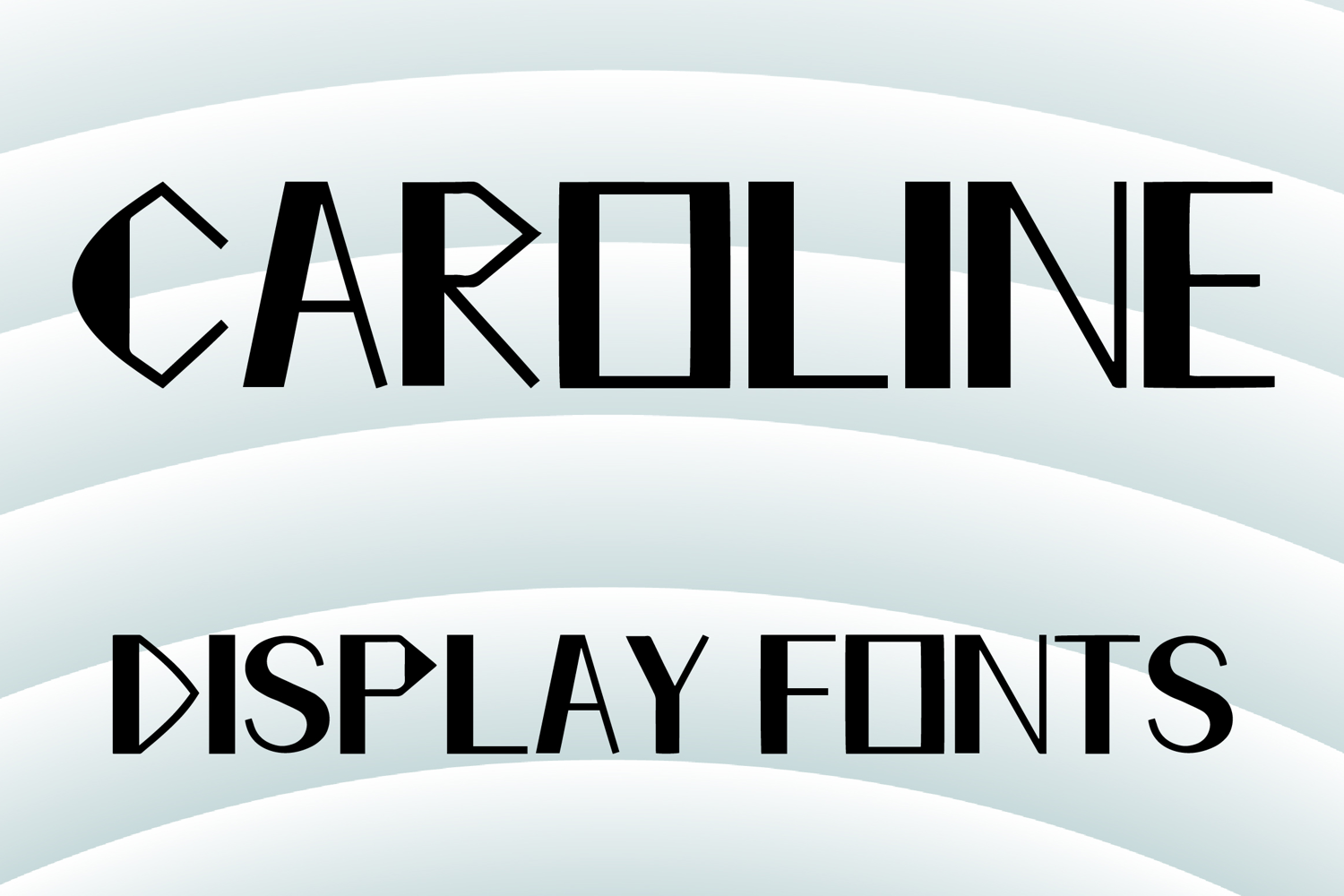
CAROLINE
CAROLINE is a bold display font with a modern geometric style and sleek artistic character. Its uppercase letterforms feature clean vertical lines, sharp angular cuts, and refined structured shapes that create a stylish, confident, and eye-catching look. Designed with uppercase letters A–Z and numbers 0–9, CAROLINE is perfect for branding, posters, packaging, logos, headlines, social media graphics, and creative projects that need a strong and memorable statement.